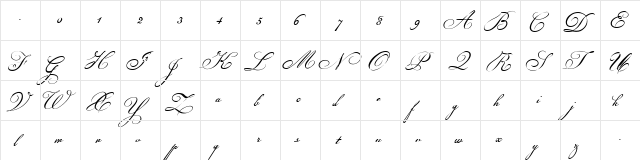
Champignon script Regular
| Foundry | Arisugava Dzyuri |
| Designer | Arisugava Dzyuri |
Design Context for Champignon script Typeface
Champignon script brings a calligraphic fluidity to the page — its connecting strokes and expressive curves give it an unmistakably human quality.
Font Pairing: Combine Champignon script with a simple geometric sans for maximum contrast — the tension between flowing curves and clean structure is a classic typographic pairing.
Pro Tip: Use Champignon script for short runs of text — names, titles, or taglines. Extended body copy in script faces tires the eye quickly.